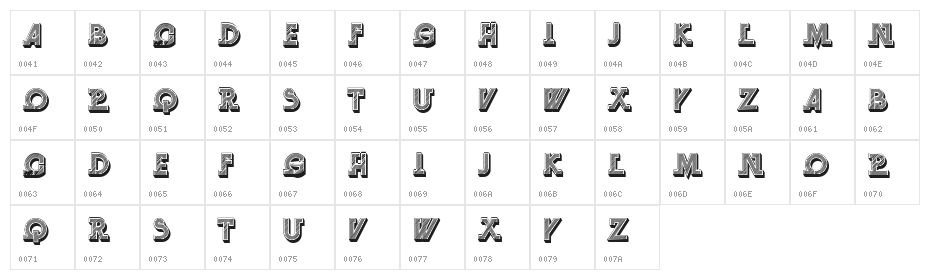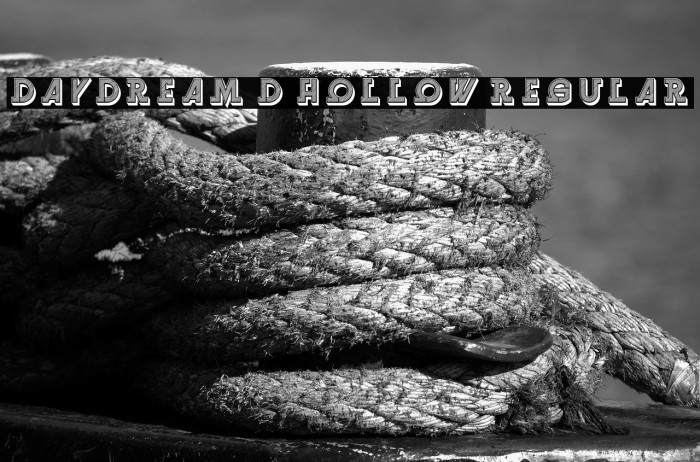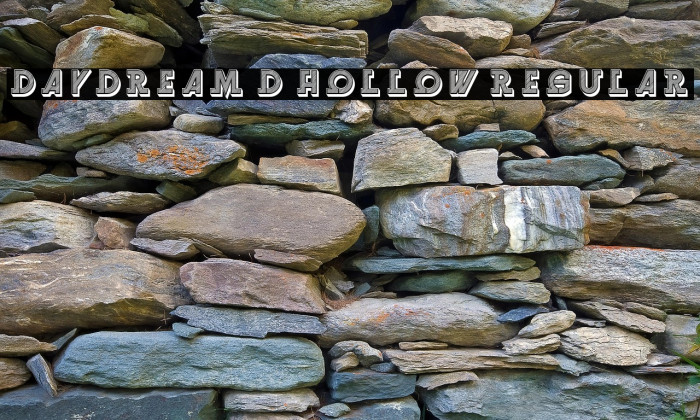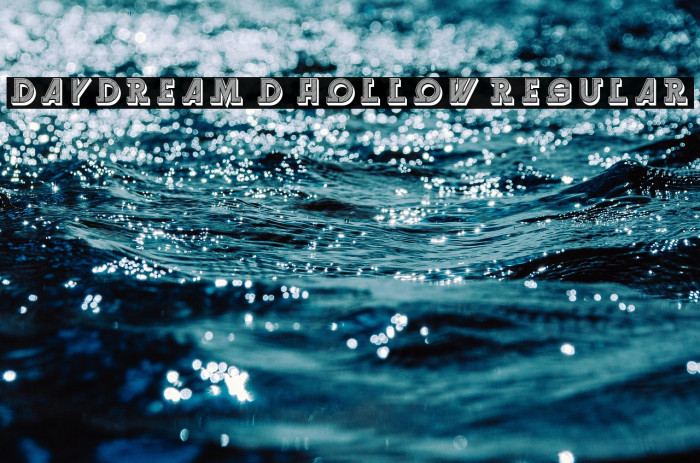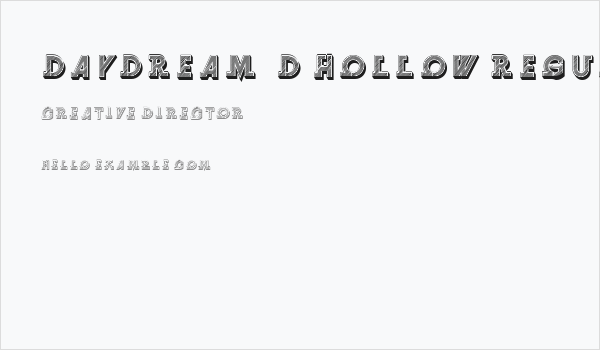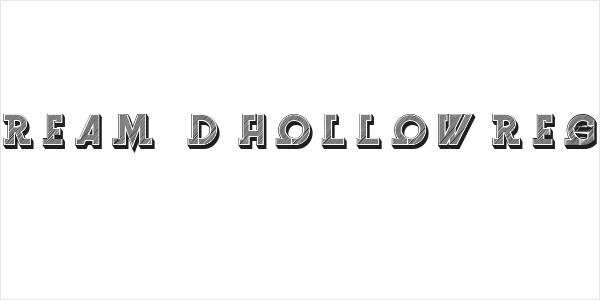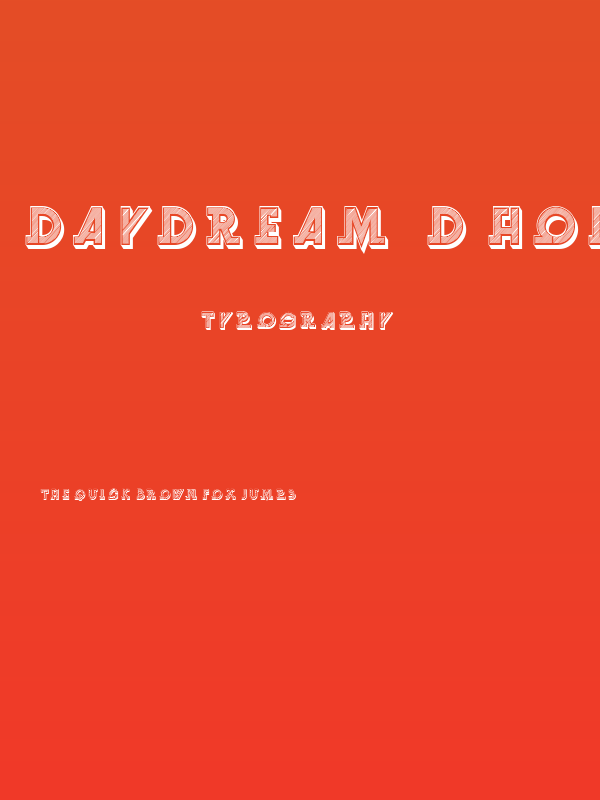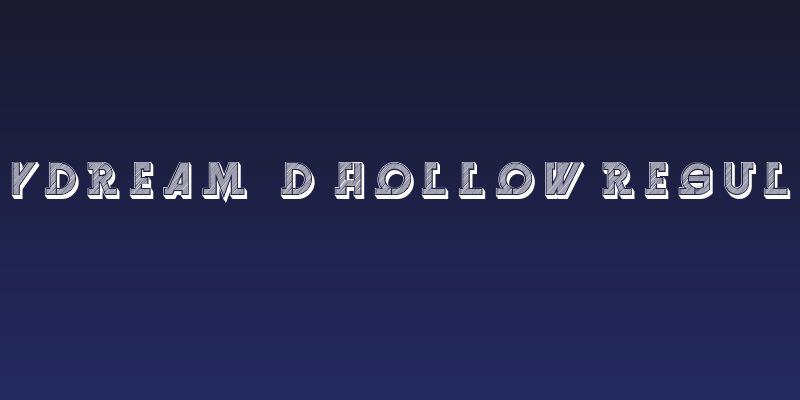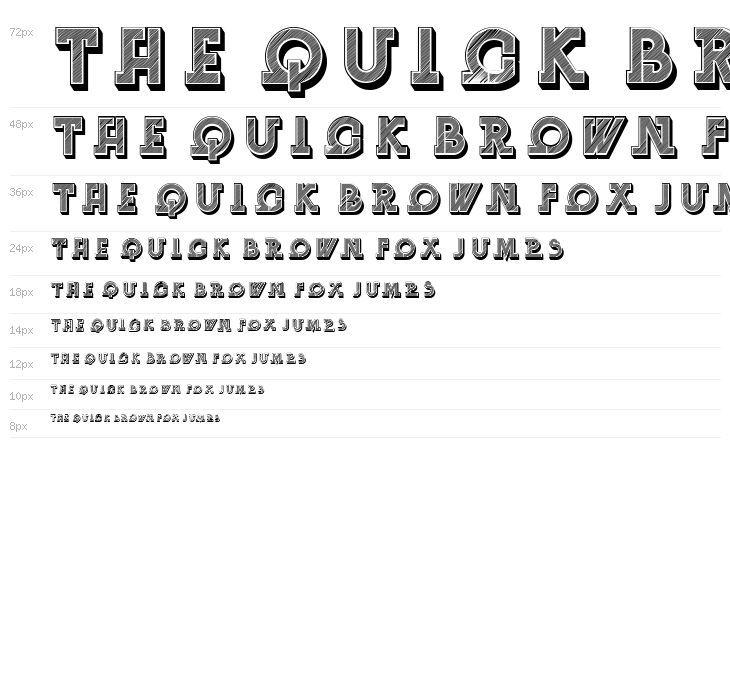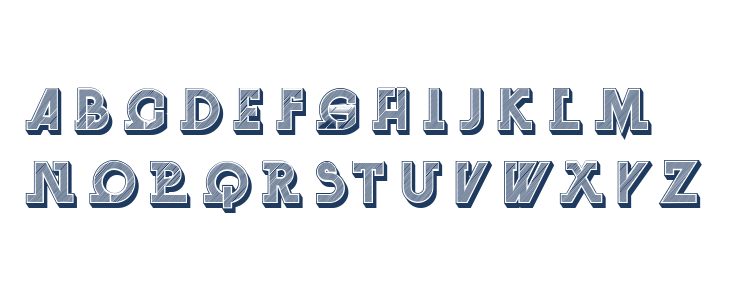
Daydream 3D Hollow Regular Font
Daydream 3D Hollow Regular Description
This font features a bold, three-dimensional hollow design that gives each character a striking and dynamic appearance. The letters are outlined with a thick border, creating a sense of depth and shadow that enhances the 3D effect. The interior of each character is hollow, with intricate line work that adds texture and complexity. This font is highly decorative, making it ideal for eye-catching headlines and creative projects. Its unique style combines modern aesthetics with a playful twist, making it suitable for various design applications where a bold statement is needed.
| Proposed Projects | Ideal for posters, logos, headlines, and any design requiring a bold, eye-catching font. |